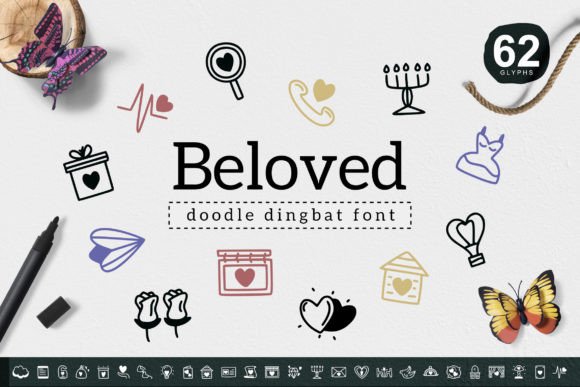
The Beloved Font: A Designer’s New Best Friend
I’ll never forget the time I was working on a sticker design project for a client’s birthday party favors. I had the perfect concept, the colors were on point, but something was missing – the right font. I scoured the internet, tried out a dozen different fonts, but none of them seemed quite right. That was until I stumbled upon the Beloved font. It’s a cute and useful dingbats font that’s perfect for a wide variety of projects, and I’m excited to share my experience with you.
So, what makes Beloved so special? Let’s dive into the good stuff and a few quirks I’ve discovered.
• ✨ Cute and playful design: The Beloved font is full of personality, with a charming, hand-drawn feel that’s perfect for adding a touch of whimsy to your designs.
• ✅ Versatile: This font is incredibly versatile, making it suitable for a wide range of projects, from stickers and posters to t-shirts and cards.
• 💡 Inspires creativity: The unique glyphs and stylistic alternates in Beloved will spark your creativity and help you come up with fresh ideas for your designs.
While Beloved is an amazing font, there are a few things to keep in mind:
• 🤔 Limited character set: As a dingbats font, Beloved has a limited character set, which means it’s not suitable for body text or long paragraphs.
The Story Behind Beloved
Beloved was designed with the intention of creating a font that’s both functional and fun. The designer wanted to create a font that would inspire creativity and add a touch of personality to any project. With its unique glyphs and stylistic alternates, Beloved is sure to become a favorite among designers and crafters alike.
What is Beloved font? Beloved is a cute and useful dingbats font perfect for a wide variety of projects, including stickers, posters, t-shirts, cards, and more.